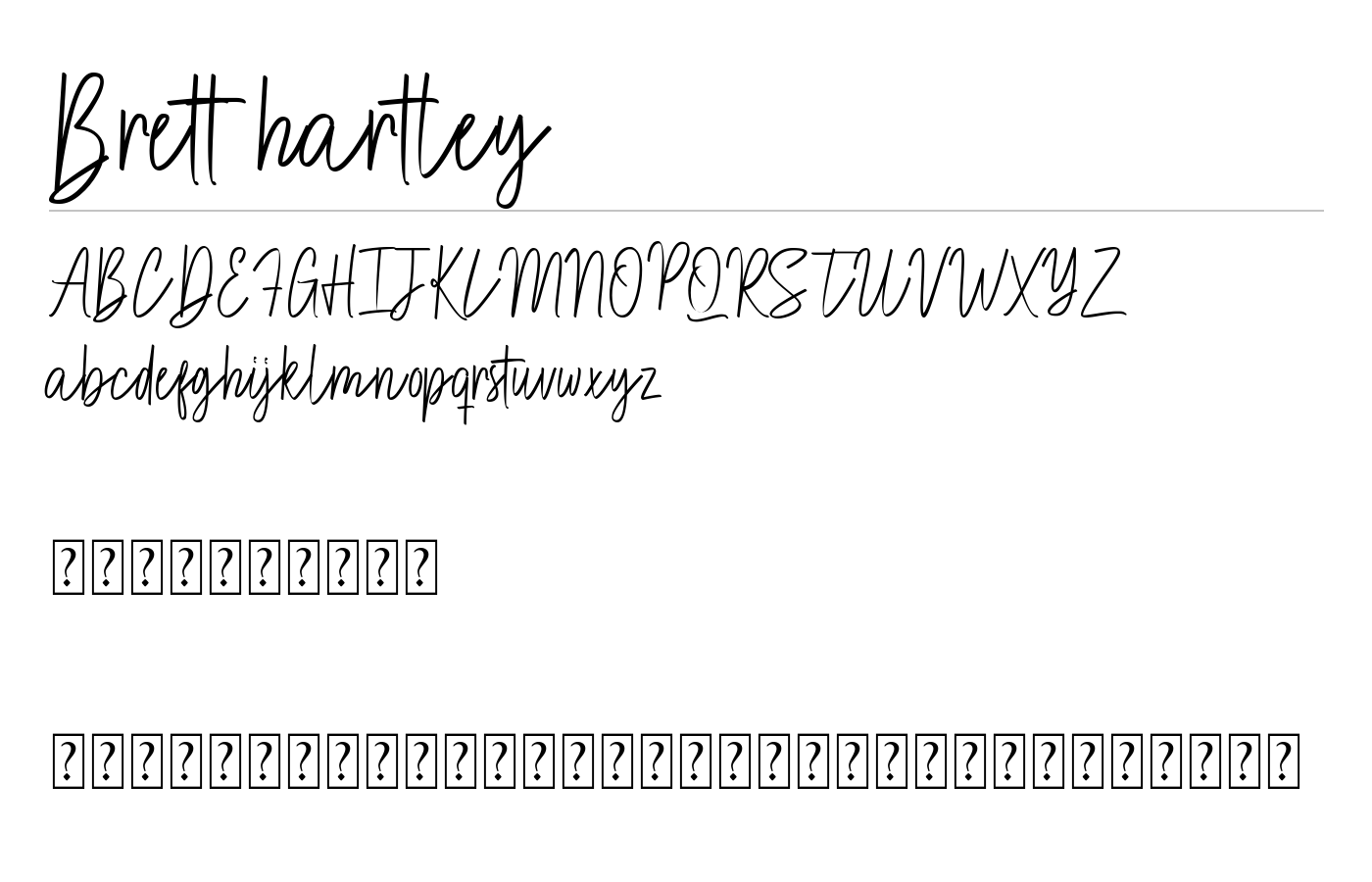
Brett Hartley is a casual, handwritten script font with a tall, slender appearance and a playful, organic feel. Its thin, slightly irregular strokes and airy letterforms make it perfect for personal, creative projects that need a friendly yet stylish touch. This font works well in invitations, logos, social media graphics, and branding that seeks an approachable and artistic vibe.
Brett hartley Font
About Brett hartley Font
| Font family | Brett hartley Font |
| Designer | Echa fajar romadhon |